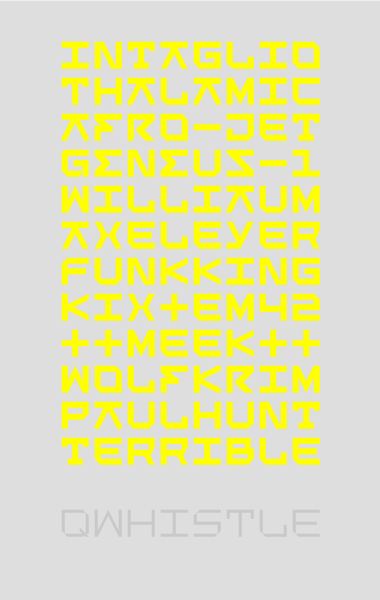
Guentersen has a posse! I really like this one.
Brilliant.
Cool!
I posted this sample and the result is a downrating of most of my fonts :)
Don't worry about. Just somebody eaten up by the green-eyed god.
Who is or what is a QWHISTLE?
Hi thal,
You're still around?! (j/k)
'qwhistle' is me: intaglio named me Quenteren and I liked it. We had a little conversation about sounds in lanquaqes (like in fish, fush and feesh). I told him how to make the german ue-sound and described it as a whistle ... in this sample-case i had to shorten (or lengthen?) my name to 8 monospaced alto-letters and i made like this q=g ue=whistle.
(sounds like a mixture of quiz and puzzle)
'gue' is my (nick)name.
Oh yes. It's not so easy getting over obsessions. ;) Not working on any fonts, though.
The eight-character name list is excellent. This list was the thing that made me decide to quit. It cannot be improved upon. Fonts are great, people are way better. Having made fonts was a nice hobby; having made friends is priceless. Thanks for being a friend. :)
@ thal,
this list was just a joke; i didn't want to make you want to leave ...
thank you for being a friend.
I know, g.
This is a really cool font, BTW. It has so many neat touches. I love the lowercase alternatives. It really makes the text sparkle when combined with the uppers. Too bad there aren't alternate numerals as well. I think you bring something special to creating typefaces being an architect. Well done. :)
Voilá! alternate digits!